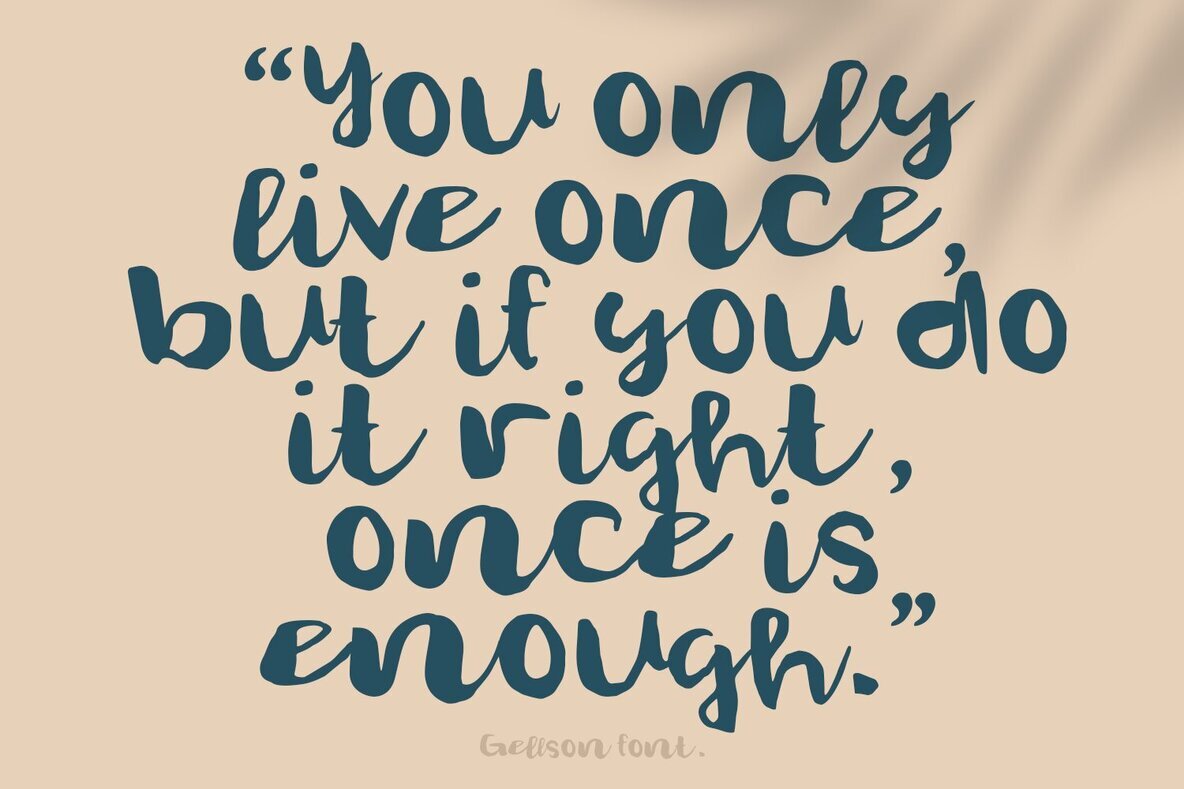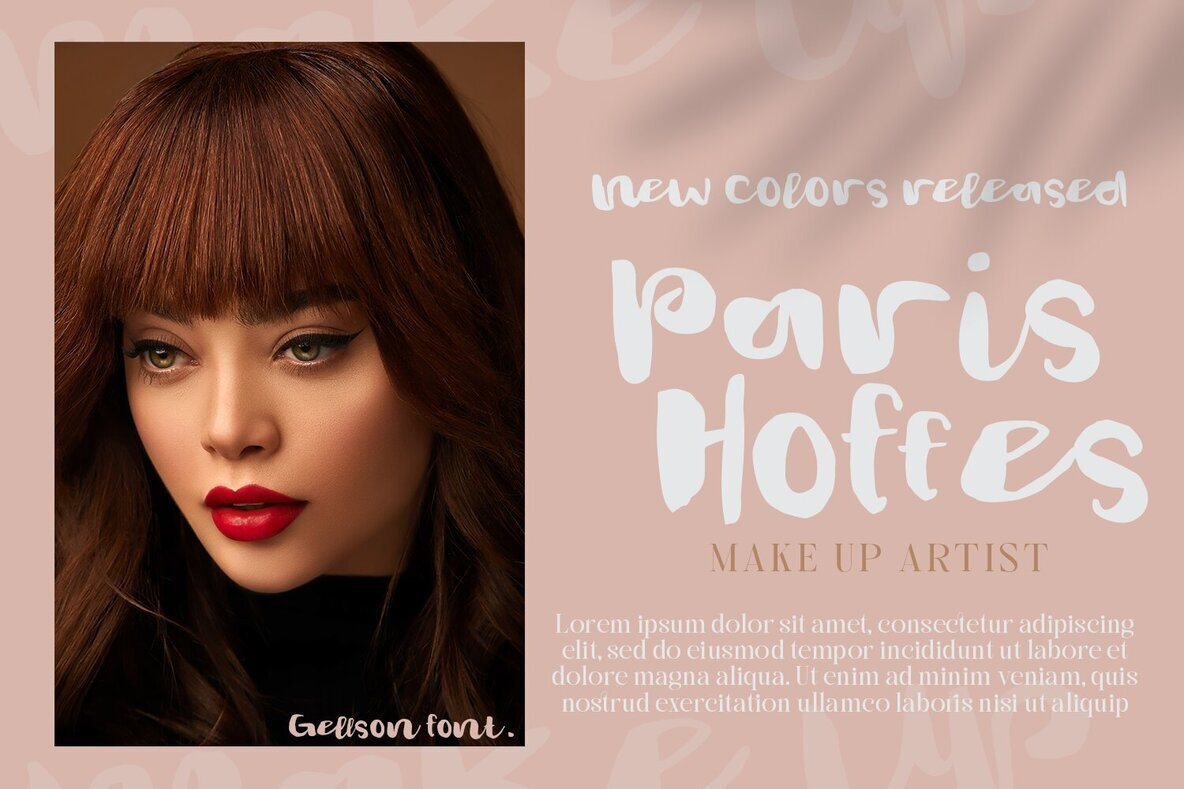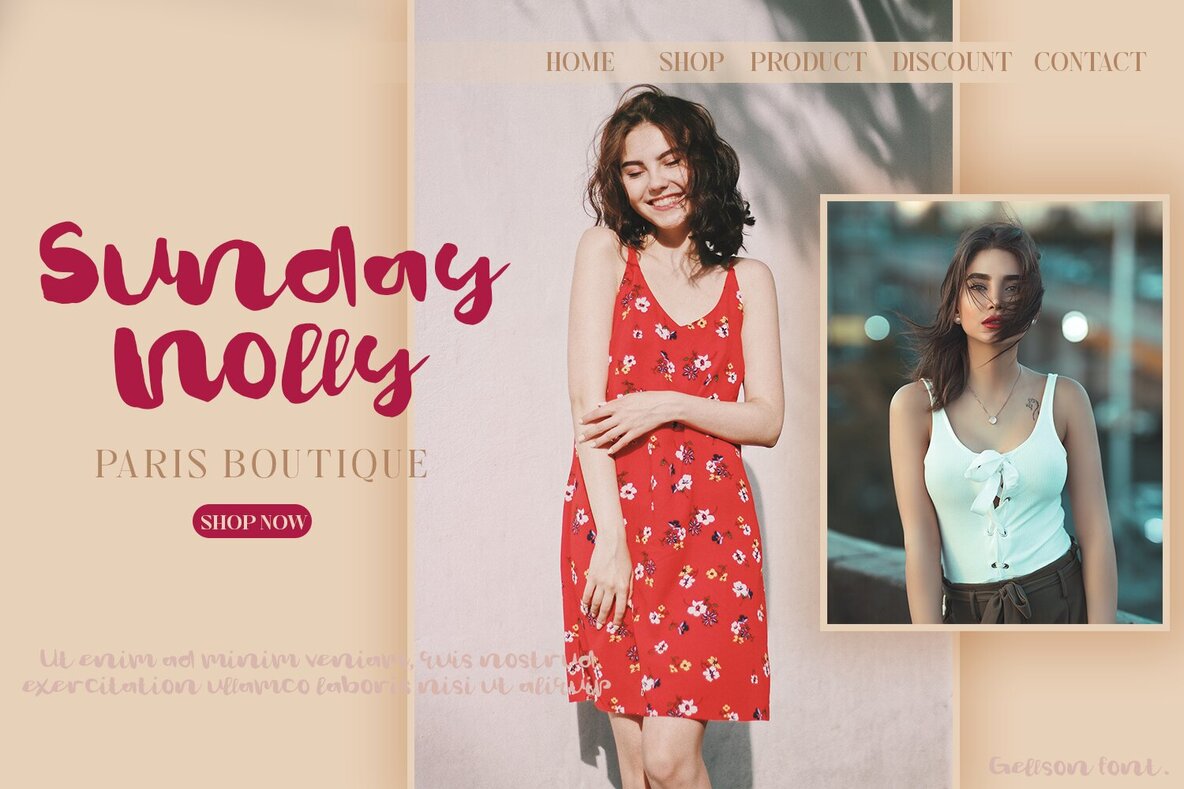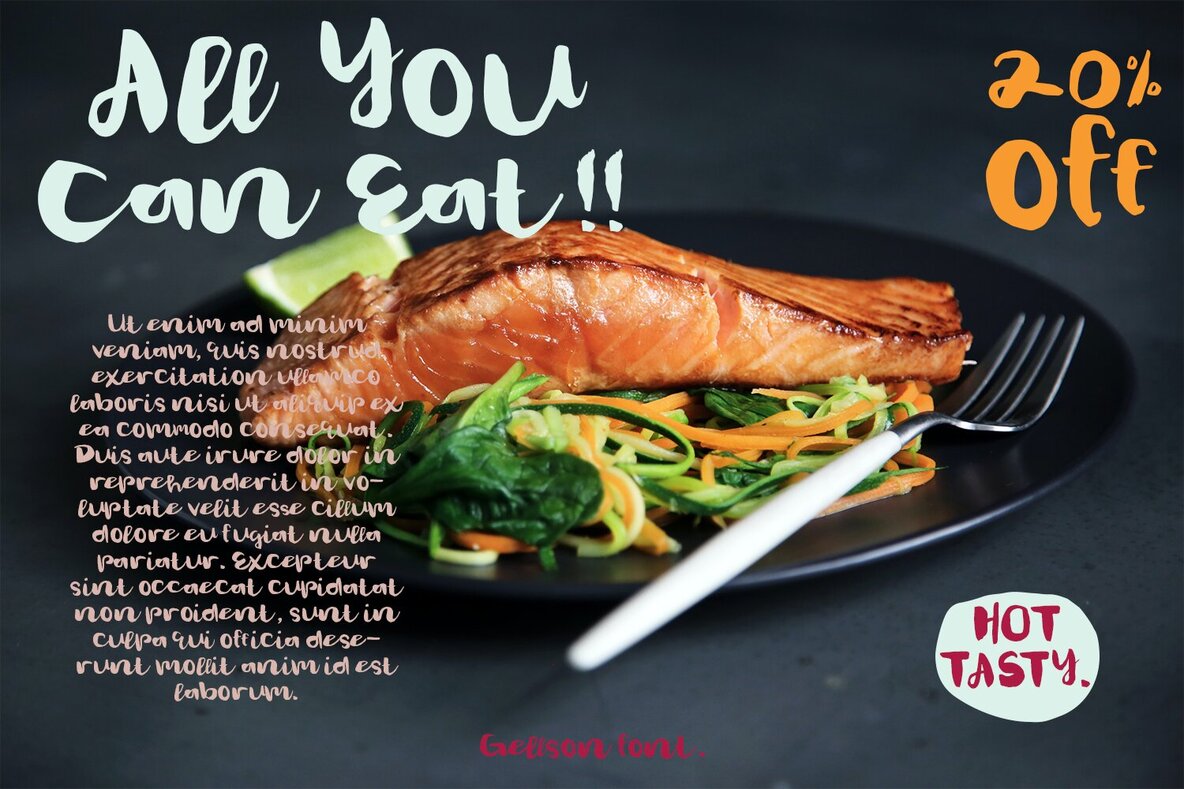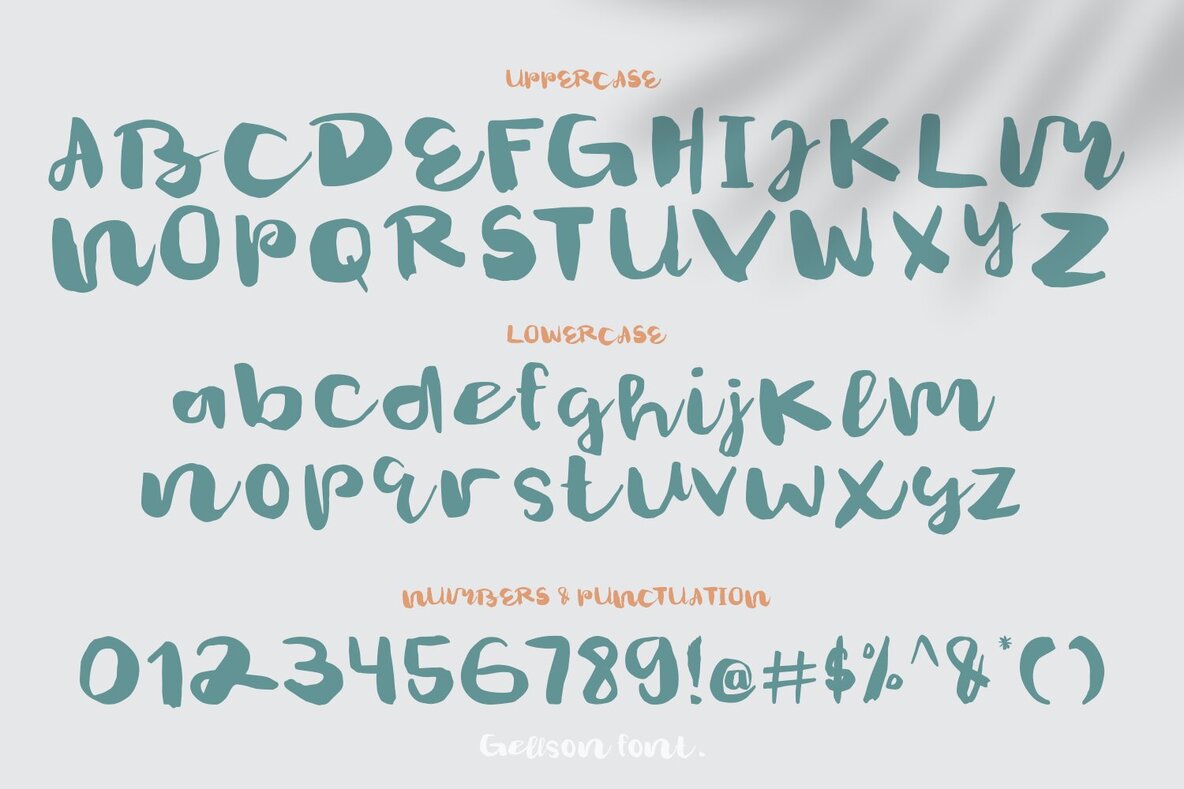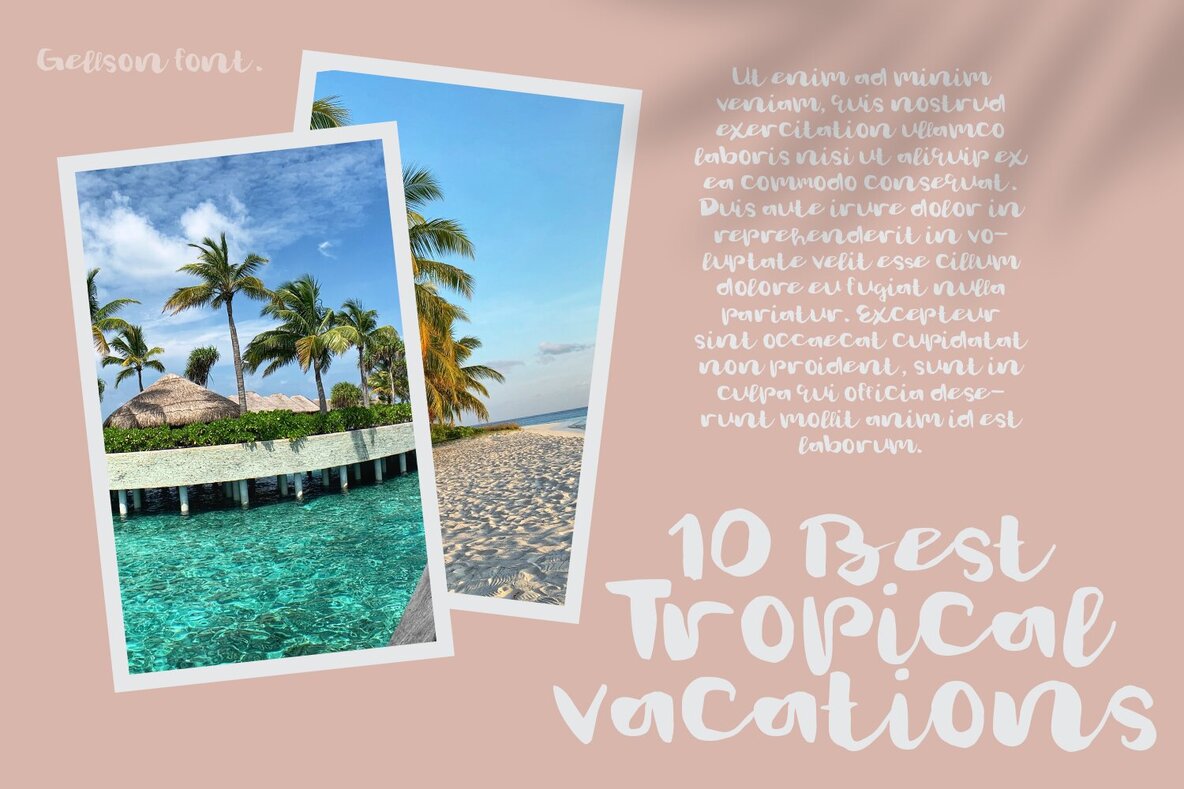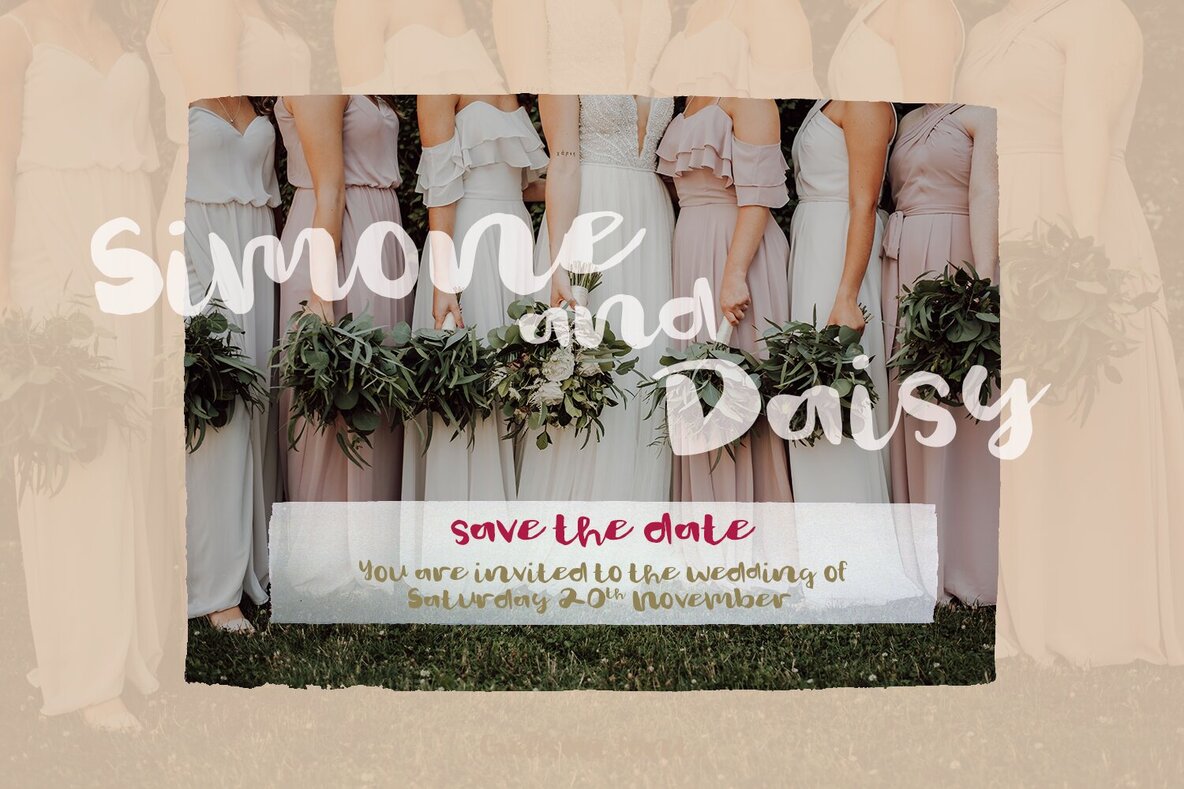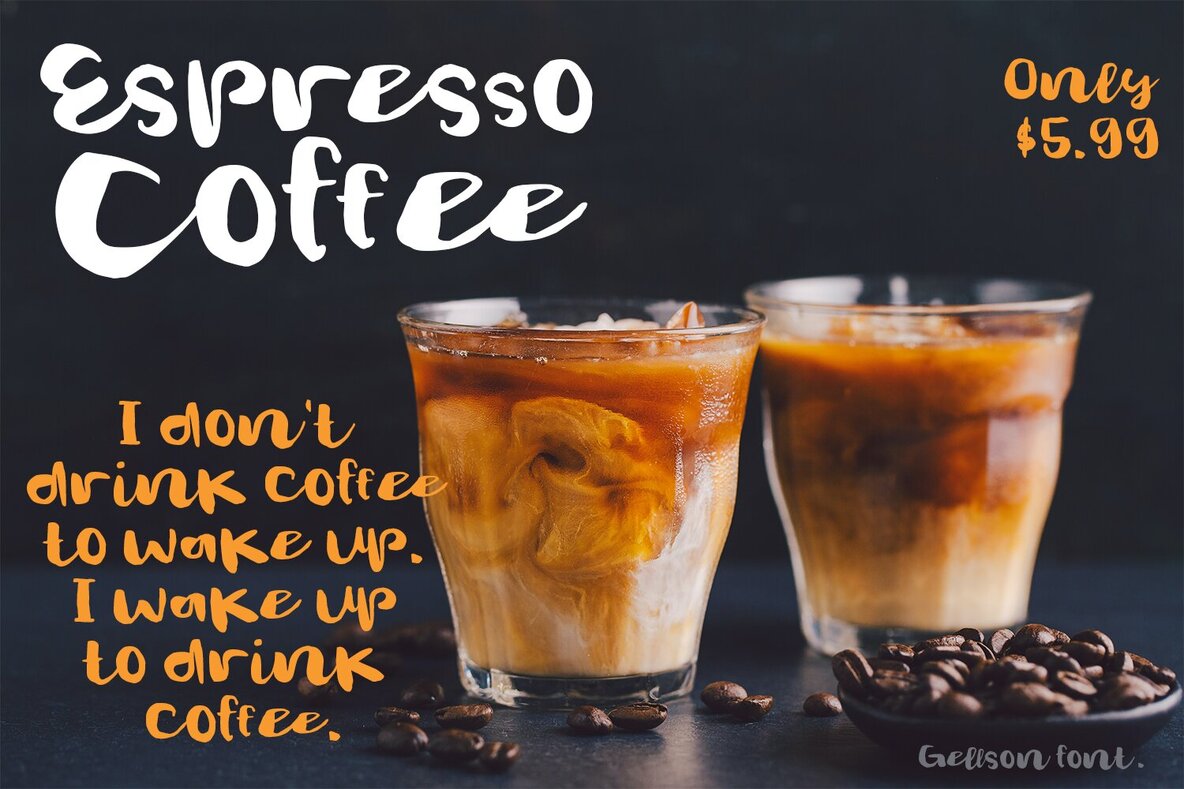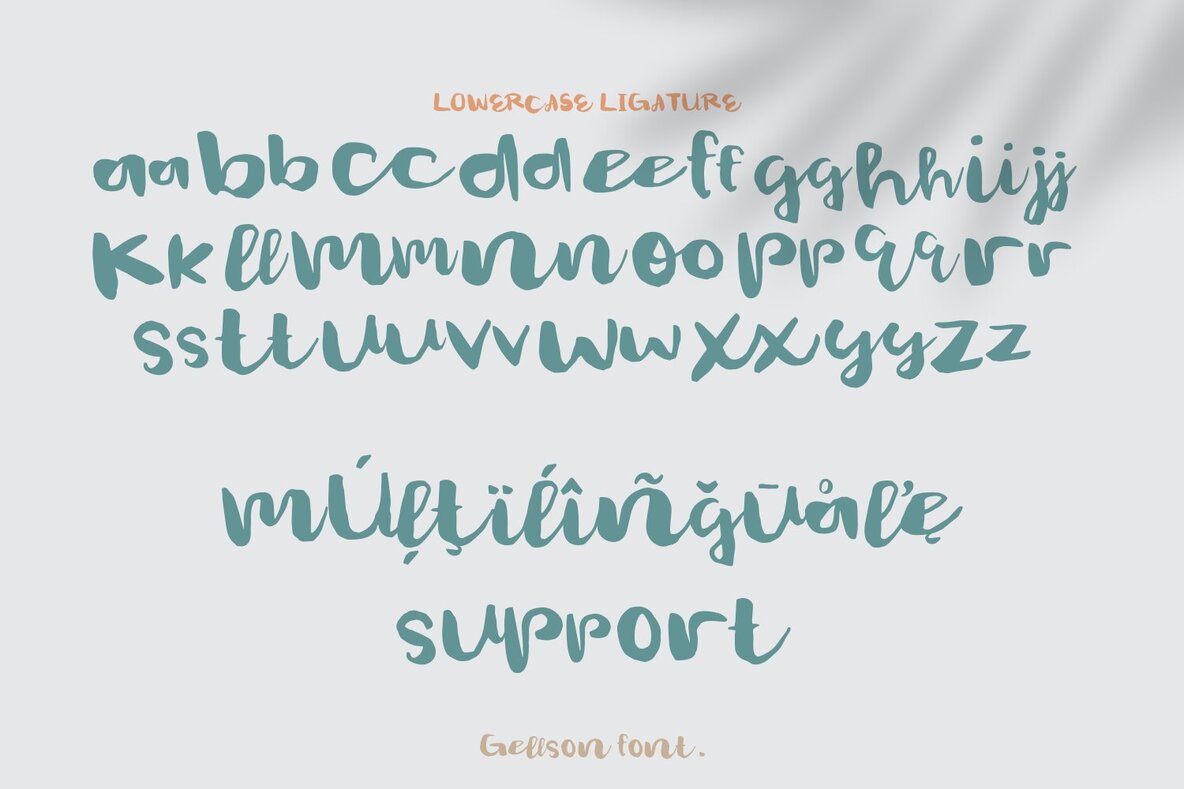
Gelsson Font: Realistic Brush Script
Gelsson offers a touch of authenticity with its brush script design, ideal for adding a personal feel to your creative projects. This font is crafted for versatility, making it suitable for a wide array of applications—from invitations to branding.
• Uppercase – Provides a bold presence.
• Lowercase – Completes the authentic script look.
• Numbers & Symbols – Includes necessary punctuation for comprehensive use.
• International Glyphs – Supports diverse languages with extended characters.
• Ligatures – Enhances aesthetics with elegant character combinations.